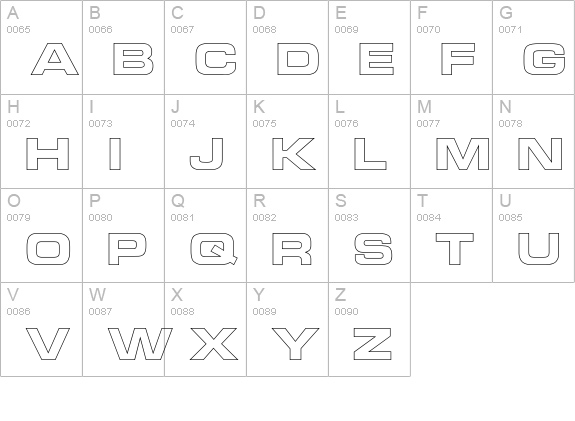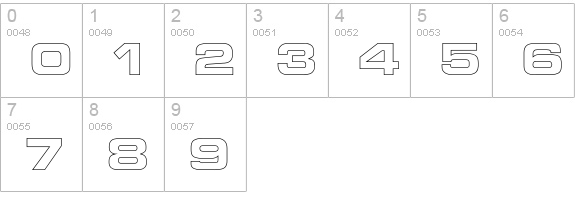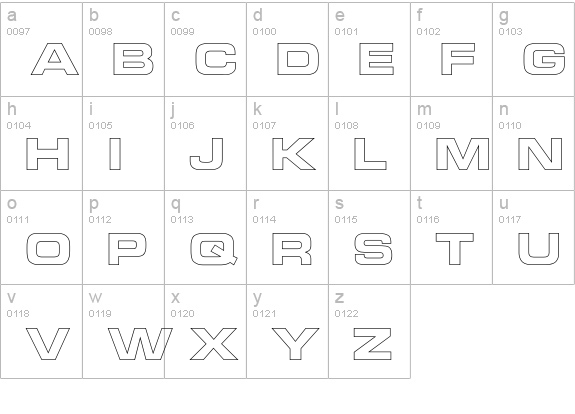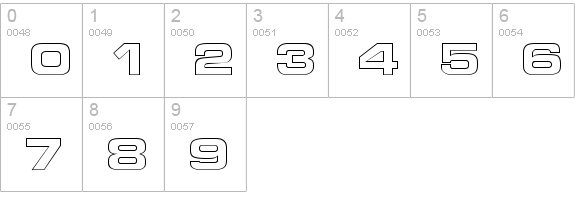
MicroTechnicExtBoldOutline Font Details
MicroTechnicExtBoldOutline font is a sleek and modern typeface that exudes confidence and professionalism. Its bold outline design makes it perfect for making a statement in any project, whether it be for headings, logos, or signage. The sharp lines and geometric shapes give this font a futuristic and cutting-edge look, making it ideal for technology-related designs. The best part about MicroTechnicExtBoldOutline font is that it is completely free to download at FontsMarket.com. This means you can easily add this unique and eye-catching font to your collection without any cost. With its versatile style and bold appearance, MicroTechnicExtBoldOutline font is sure to make a bold impact in any design project.